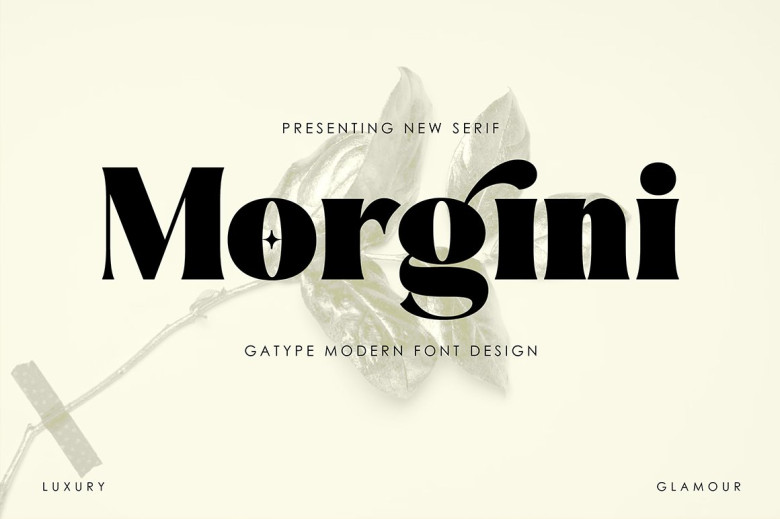
Morgini Font
Morgini serif typefaces offer a comprehensive collection of alternative character types, SWASH and unique ligatures for graphic designers today! With uppercase numerals, punctuation marks, letters marks and multilingual letters,
Morgini font is a must-have font for all contemporary graphic designers! A versatile font suitable for branding purposes or logo designs such as magazine wedding invites, posters packaging clothing websites headers as well as text overlays over photos – Morgini font makes its mark with every use case!
Morgini Serif Font